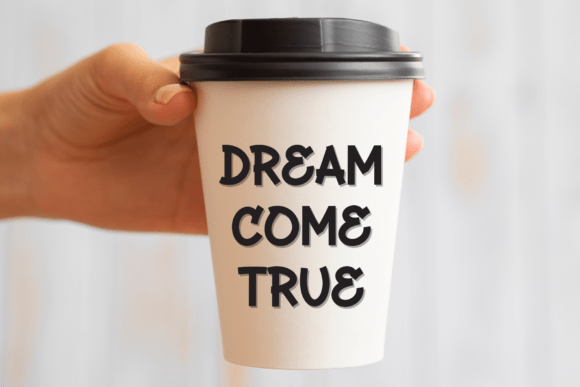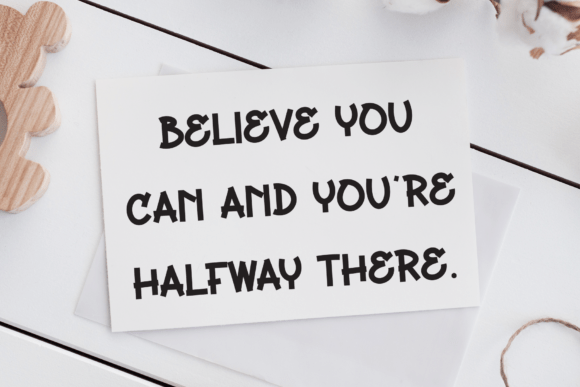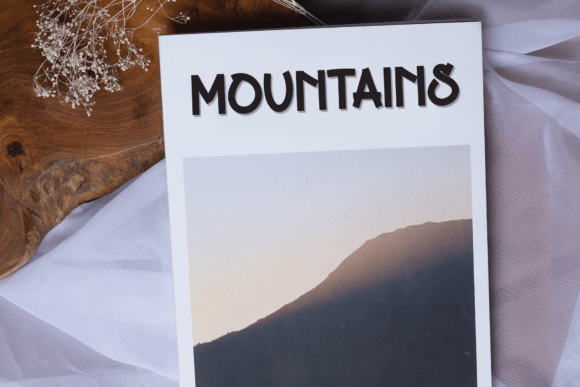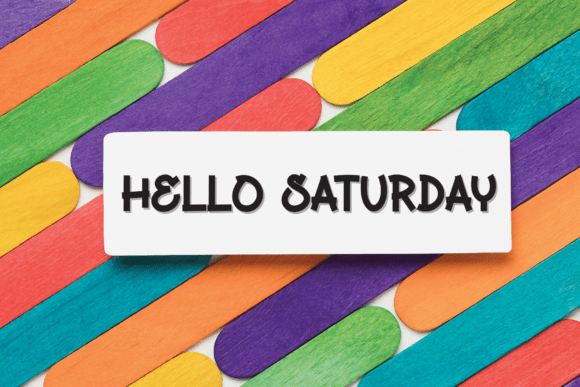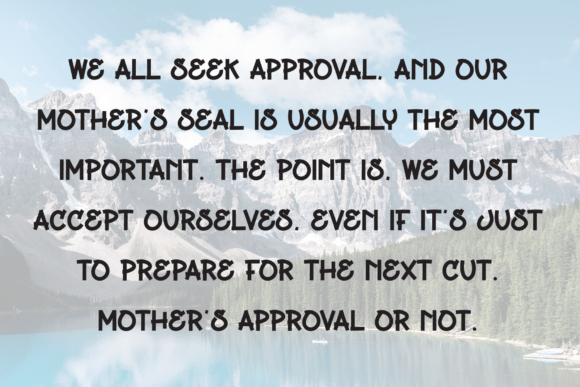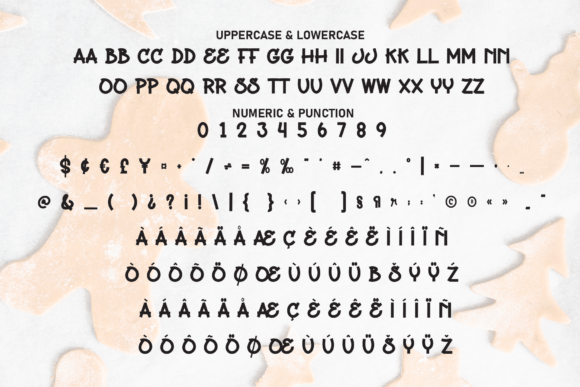
Ginger Bread Font: A Bold and Rustic Typeface for Seasonal Branding
In the world of typography, fonts play a crucial role in conveying the tone and personality of a brand. For designers and crafters looking for a unique and eye-catching font to elevate their holiday branding, product packaging, or editorial titles, the Ginger Bread font is an excellent choice. This bold and authoritative display font boasts a modern rustic aesthetic, making it perfect for those seeking a distinctive and impactful typeface.
Characteristics of the Ginger Bread Font
The Ginger Bread font features massive, blocky letterforms that command attention with their strong vertical presence and heavy visual weight. The typeface’s rustic aesthetic gives it a charming, handmade feel that’s ideal for seasonal holiday branding, artisanal bakery logos, and creative editorial titles. The font’s bold and authoritative personality makes it a standout choice for designers looking to add a touch of warmth and coziness to their projects.
Uses for the Ginger Bread Font
The Ginger Bread font is incredibly versatile and can be used in a variety of applications, including:
- Seasonal Holiday Branding: The font’s festive and rustic charm makes it perfect for holiday-themed branding, packaging, and marketing materials.
- Impactful Product Packaging: The font’s bold and authoritative personality makes it an excellent choice for product packaging that needs to stand out on store shelves.
- Artisanal Bakery Logos: The font’s charming, handmade feel makes it a great fit for artisanal bakery logos and branding materials.
- Creative Editorial Titles: The font’s unique and eye-catching design makes it perfect for creative editorial titles, such as magazine covers, blog posts, and social media graphics.
Why Choose the Ginger Bread Font?
There are many reasons why designers and crafters should consider using the Ginger Bread font in their projects. Here are just a few:
- Unique and Eye-Catching: The font’s bold and rustic design makes it a standout choice for designers looking to add a touch of personality to their projects.
- Versatile: The font can be used in a variety of applications, from seasonal holiday branding to product packaging and editorial titles.
- Easy to Read: Despite its bold and chunky design, the font is surprisingly easy to read, making it perfect for use in a variety of contexts.
- High-Quality: The font is designed to high-quality standards, ensuring that it will look great in any project.
Tips for Using the Ginger Bread Font
To get the most out of the Ginger Bread font, here are a few tips to keep in mind:
- Use it Sparingly: Due to its bold and chunky design, it’s best to use the font sparingly to avoid overwhelming the reader.
- Pair it with a Serif Font: Pairing the Ginger Bread font with a serif font can help to create a nice contrast and add visual interest to your project.
- Experiment with Colors: The font looks great in a variety of colors, so don’t be afraid to experiment and find the perfect hue for your project.
In conclusion, the Ginger Bread font is a bold and authoritative display font that’s perfect for designers and crafters looking to add a touch of warmth and coziness to their projects. With its modern rustic aesthetic, massive blocky letterforms, and strong vertical presence, this font is sure to make a statement. Whether you’re working on seasonal holiday branding, impactful product packaging, artisanal bakery logos, or creative editorial titles, the Ginger Bread font is an excellent choice.